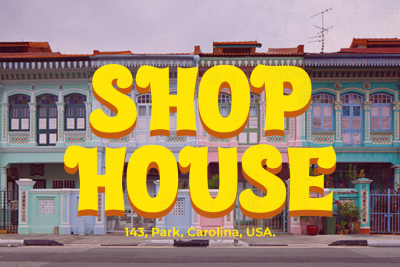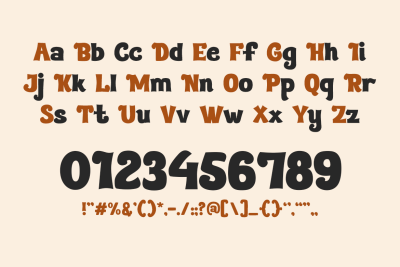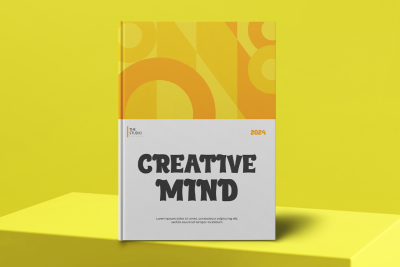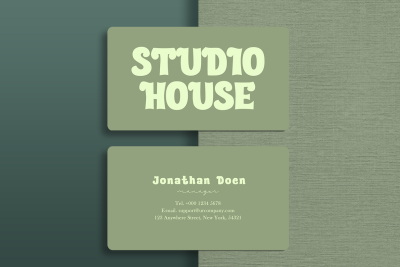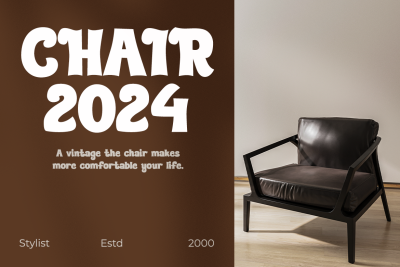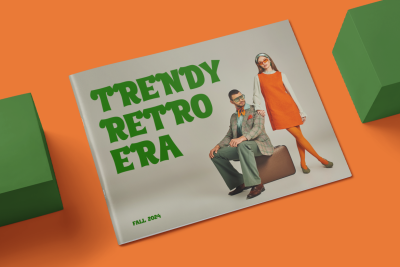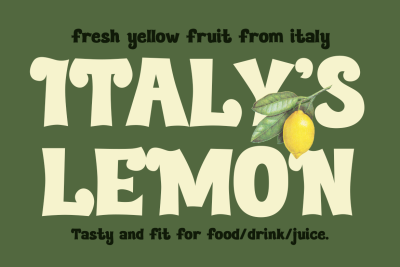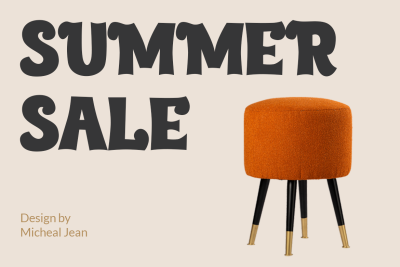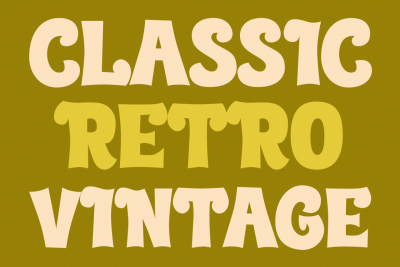
Retro Font HESTORIA
HESTORIA
Retro Font HESTORIA is a bold and captivating typeface inspired by vintage aesthetics, making it perfect for projects that demand a nostalgic yet contemporary vibe. Its thick, playful strokes and smooth curves evoke a sense of 70s charm, blending the retro style with modern functionality. The font’s unique character ensures your designs are eye-catching and full of personality.
With its high readability and striking appearance, HESTORIA is ideal for creating standout headlines, logos, and packaging. It seamlessly balances a playful, whimsical feel with a professional touch, making it versatile across different applications. Whether you’re designing for print or digital, this font adds a dynamic, creative edge to your work. Its timeless design bridges past and present, ensuring your projects feel relevant yet full of character.
In addition, HESTORIA includes multilingual support, making it accessible for global audiences. Its carefully designed glyphs and characters ensure that your message is communicated clearly, no matter the language. This versatility further enhances its appeal, as it works beautifully for both small-scale and large-scale designs. From bold statement pieces to subtle details, HESTORIA is a true creative asset.
Retro Font HESTORIA Perfect For
The Retro Font HESTORIA is perfect for designers, creators, and businesses looking to infuse a vintage vibe into their projects. Graphic designers can use it to craft attention-grabbing logos, posters, or packaging designs that stand out. Branding professionals will appreciate its ability to add a unique, retro touch to brand identities.
Content creators, such as bloggers and social media managers, can incorporate HESTORIA into posts, banners, or thumbnails to attract audiences with its bold and fun design. It’s also a fantastic choice for event planners or marketers who want to promote themed events, such as retro parties, music festivals, or nostalgic product launches.
Additionally, small business owners can use this font for shop signage, menus, or flyers to create a memorable and welcoming brand image. Whether you’re in the fashion, lifestyle, or entertainment industry, HESTORIA is versatile enough to suit a variety of themes.
Moreover, wedding planners and DIY enthusiasts can use HESTORIA to create personalized invitations, decor, and crafts with a retro touch. Ultimately, it’s a must-have font for anyone who loves vintage-inspired designs with a modern twist.